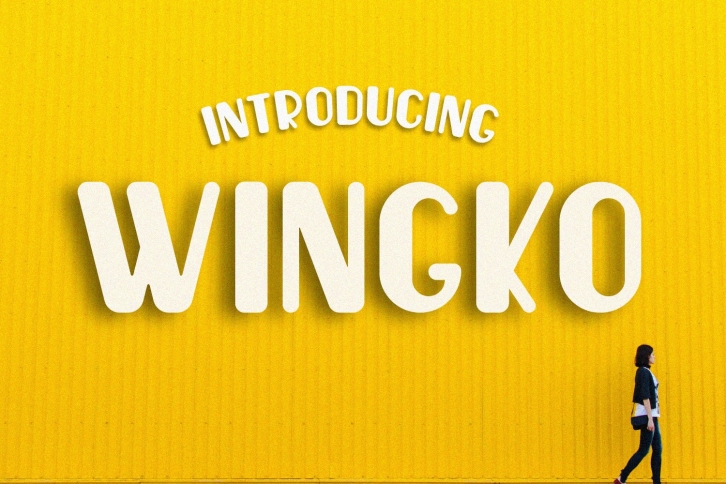
Wingko Fun is a trendy and unique font with an authentic style. It was designed by Sabrcreative and it's a great choice for creative people who need such a font. It was released on December 12, 2018 and the file size is 2.58 MB. Wingko Fun will add an organic vibe to any design idea!